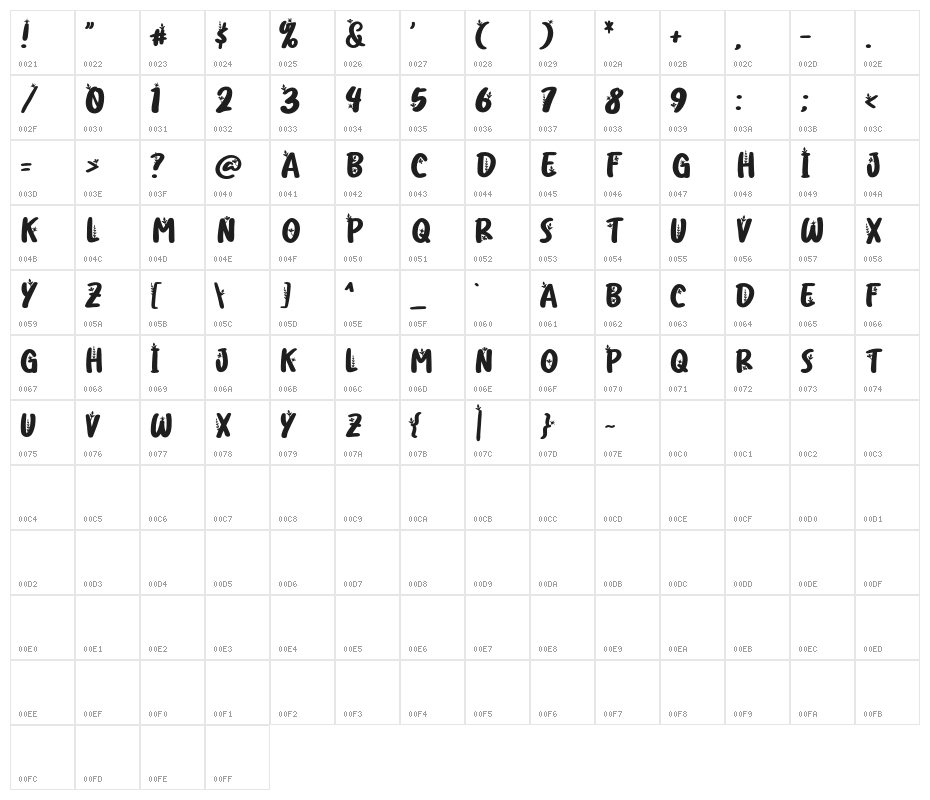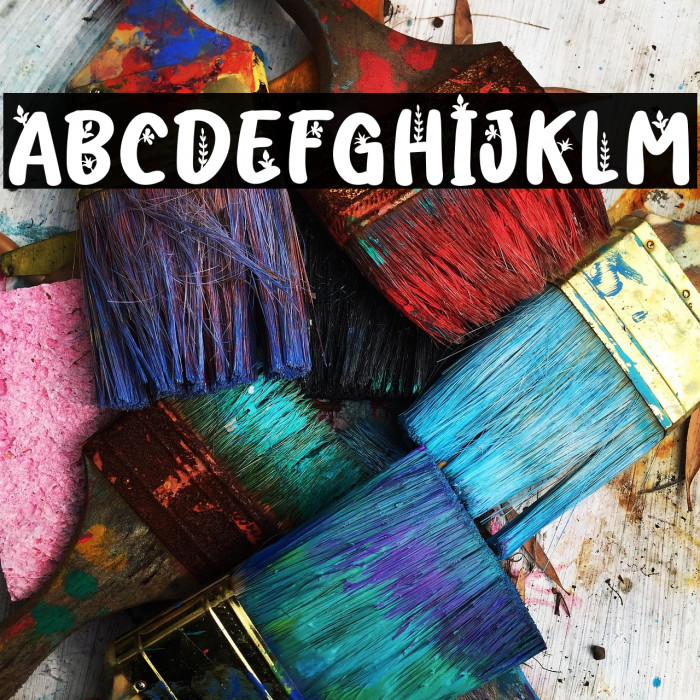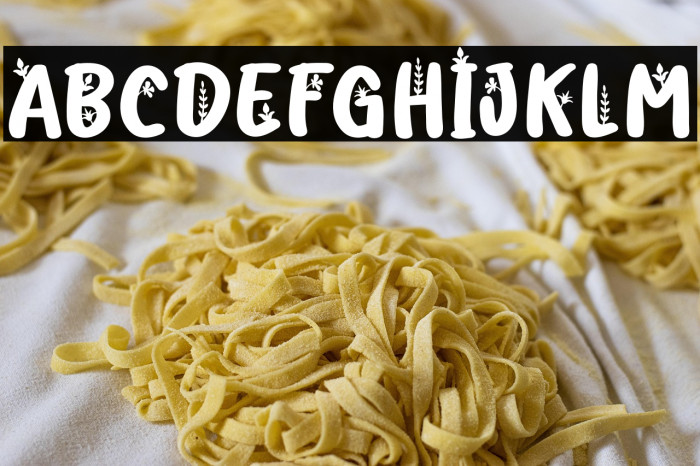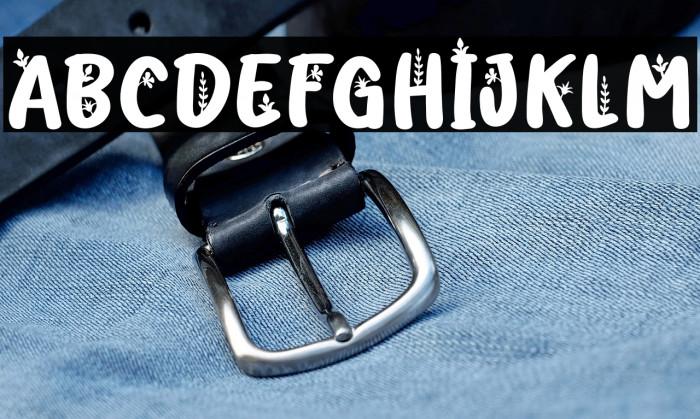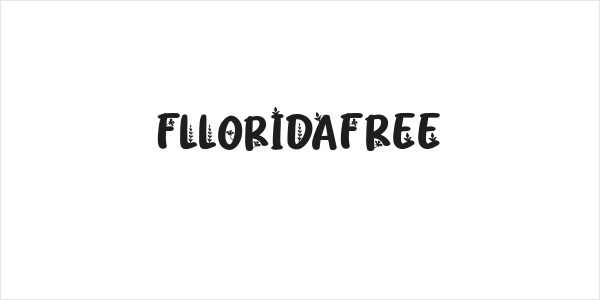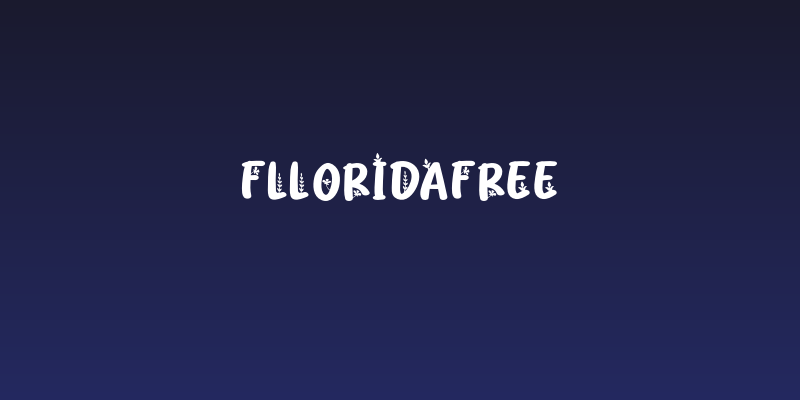
FlloridaFREE Font
FlloridaFREE Description
This playful and decorative font features bold, rounded characters adorned with whimsical floral elements. Each letter and number is uniquely embellished with small leaves and stems, giving it a lively and organic feel. The font maintains a consistent weight throughout, with a slightly condensed width that enhances its bold appearance. The floral accents add a touch of nature-inspired creativity, making it ideal for projects that require a fun and artistic touch. The characters are well-spaced, ensuring readability while maintaining their decorative charm.
Proposed ProjectsPerfect for greeting cards, children's book covers, event invitations, and eco-friendly brand logos.